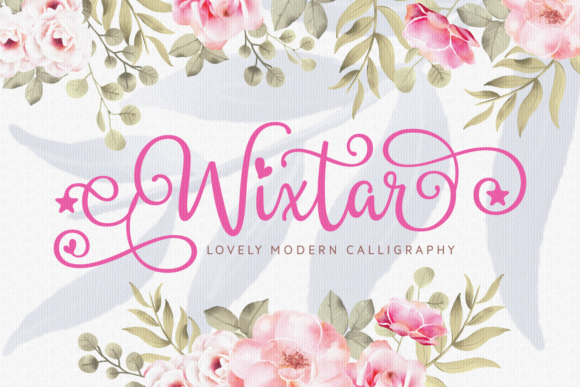
Unleash the artistry within you with Wixtar Font, a script font brimming with charm and elegance. This stunning creation by Situjuh captivates the essence of handwritten beauty, adding a touch of whimsy to your creative endeavors.
Step into a world of flowing strokes, graceful curves, and delicate swashes that dance across the page. Wixtar Font is not just a font; it's an experience that ignites your imagination and brings your creative vision to life.
Whether you're a seasoned designer or just starting your artistic journey, Wixtar Font is your perfect companion. Its user-friendly design makes it effortless to incorporate into your projects, and its versatility knows no bounds.
Craft heartfelt invitations that carry the weight of your emotions, design social media posts that radiate charm, or create stunning logos that leave a lasting impression. With Wixtar Font, the possibilities are endless.
Elevate your branding to new heights with Wixtar Font, a font that speaks volumes about your attention to detail and commitment to excellence. Let your designs exude sophistication and allure, capturing the hearts of your audience with every stroke.
But Wixtar Font is more than just a visual masterpiece; it's an emotional journey that connects you with your creative self. As you trace the curves and flourishes of each character, you'll feel the creative energy flowing through you, transforming your vision into reality.
So embrace the magic of Wixtar Font and embark on a creative adventure that will leave you breathless. Let your imagination soar, let your creativity shine, and let Wixtar Font guide you towards artistic greatness.